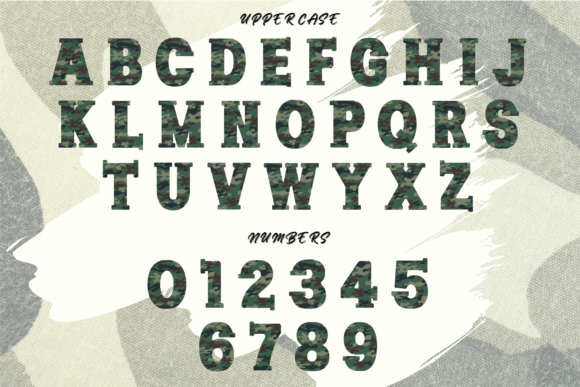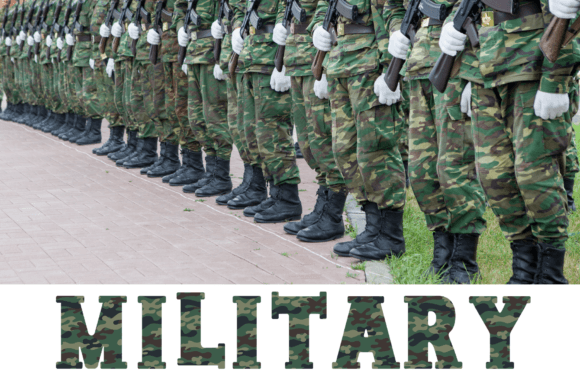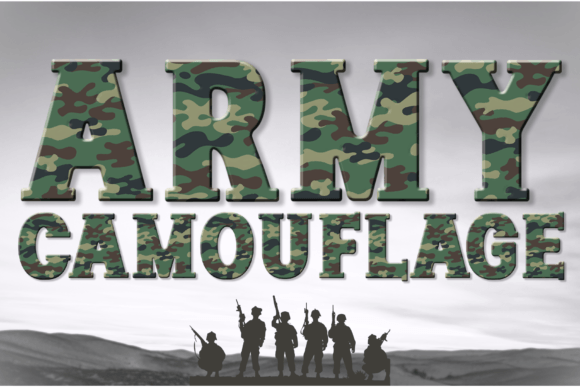
Army Camouflage Font
Army Camouflage is a cool and fun color font.It is suitable for events that feel good such as 4th of July Day, birthdays, family days, and fun festivals.This font will make your designs look cute and fun.Great for T-shirts, Cards, Party Invites, Mugs, Wall Art, Bags, and much more.Note! This product is a color font (Opentype-SVG) and is compatible with PhotoShop, Illustrator, Silhouette, and Inkscape. The OTF and/or TTF files of this product are not compatible with Cricut. For more information on how to use this type of font please check our Ultimate Font Guide .